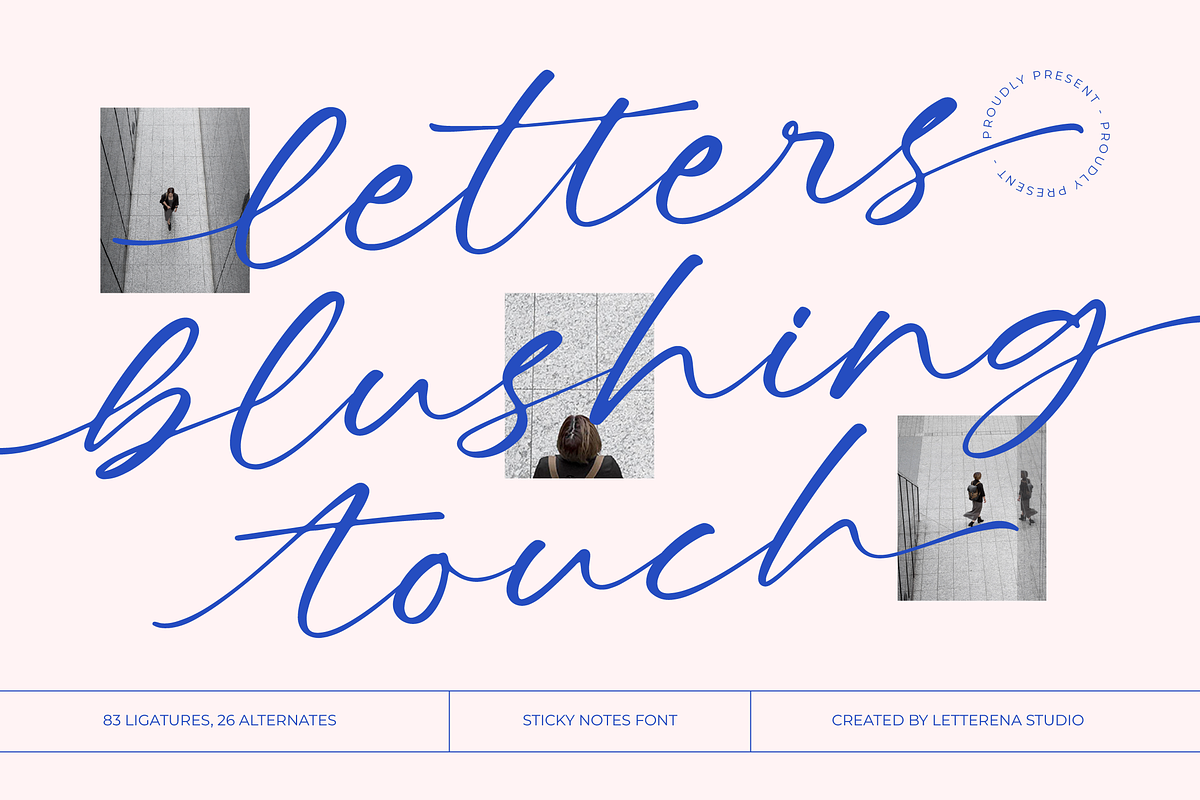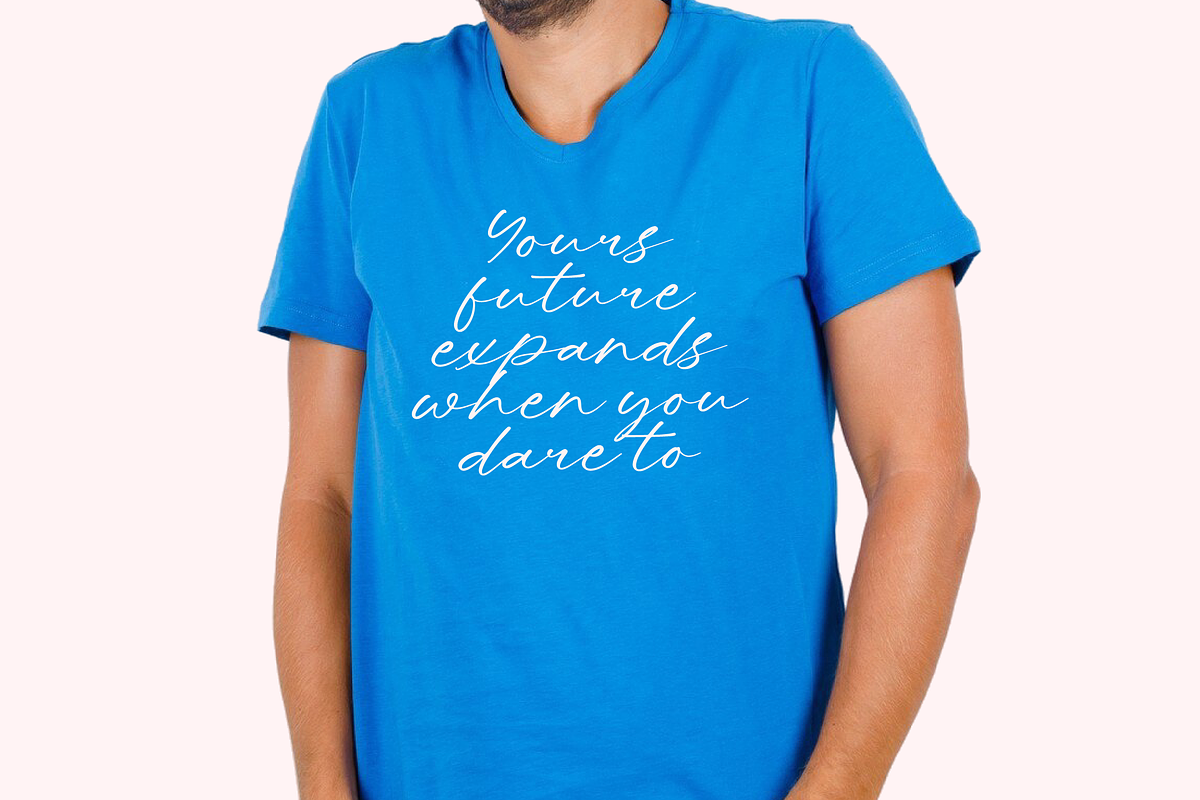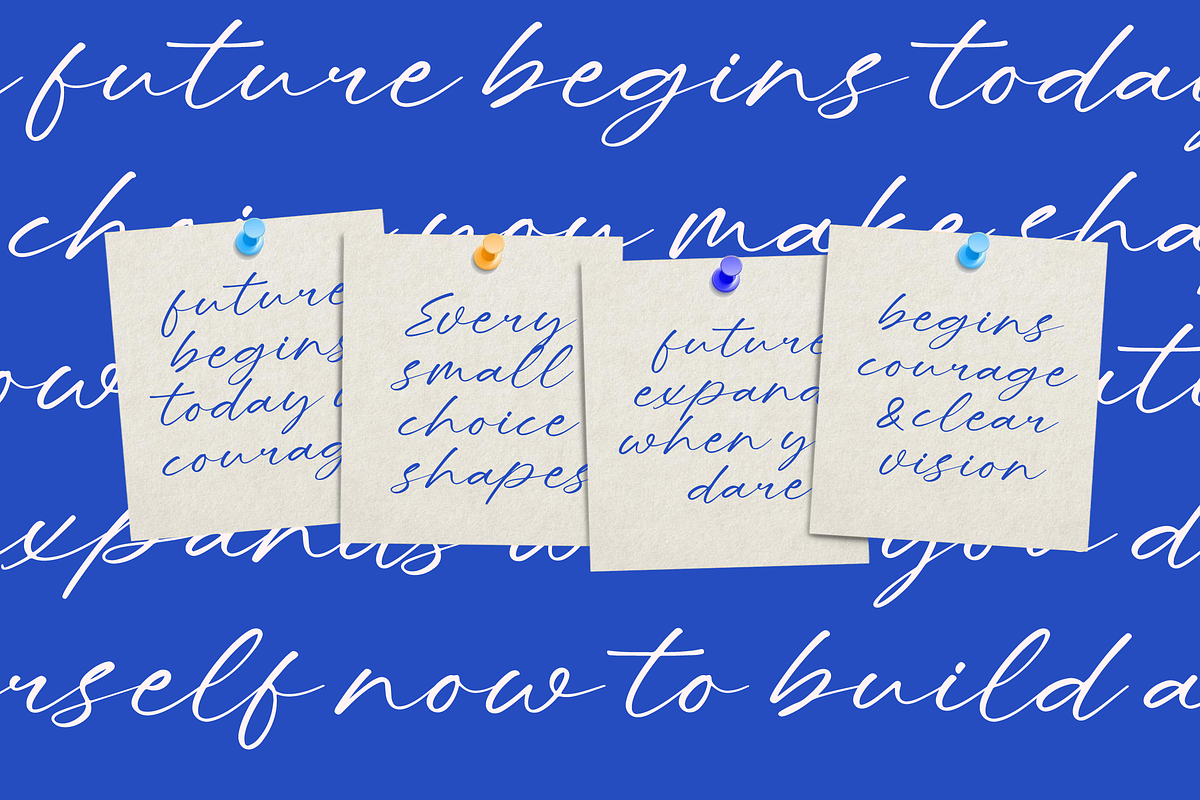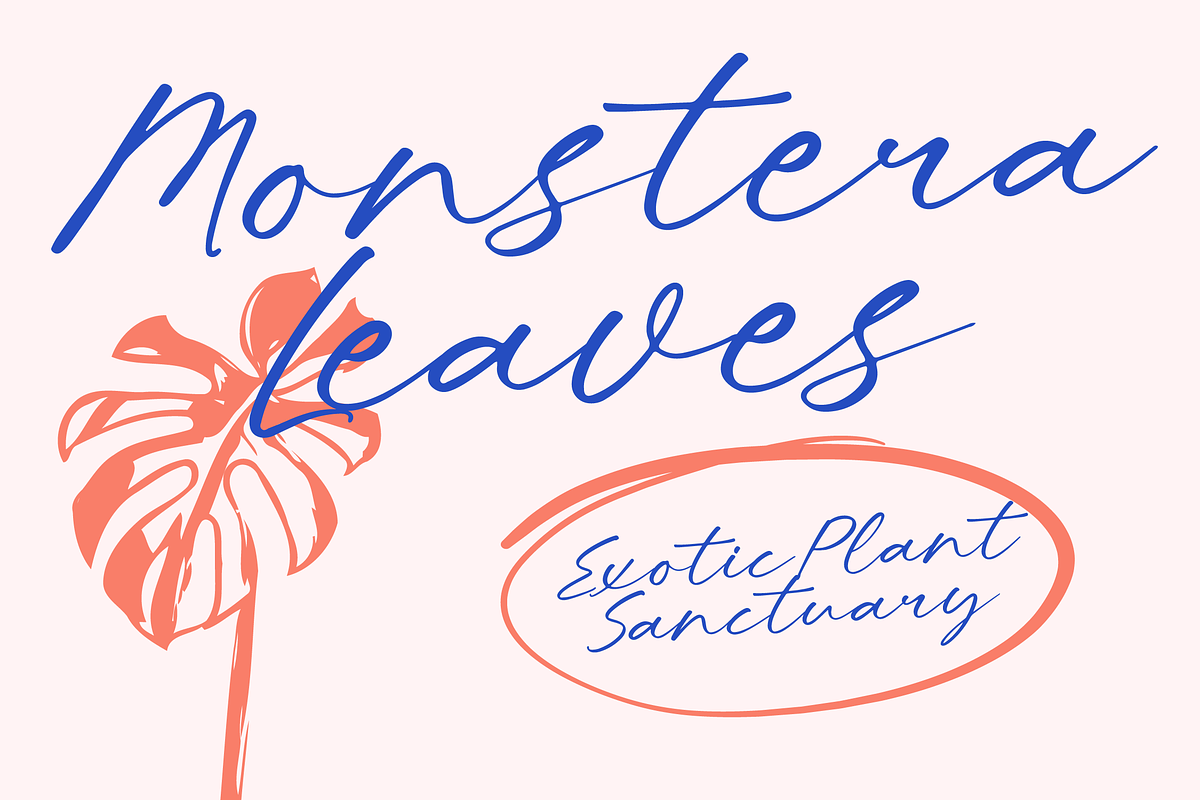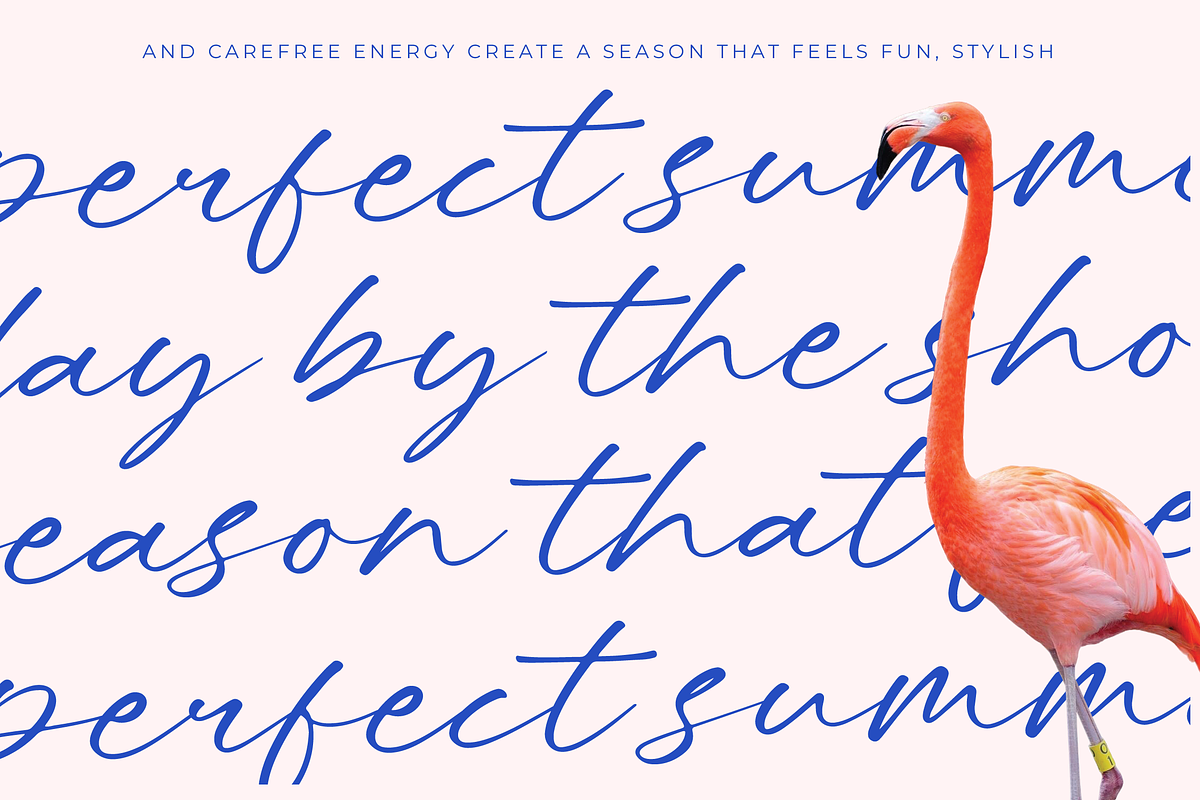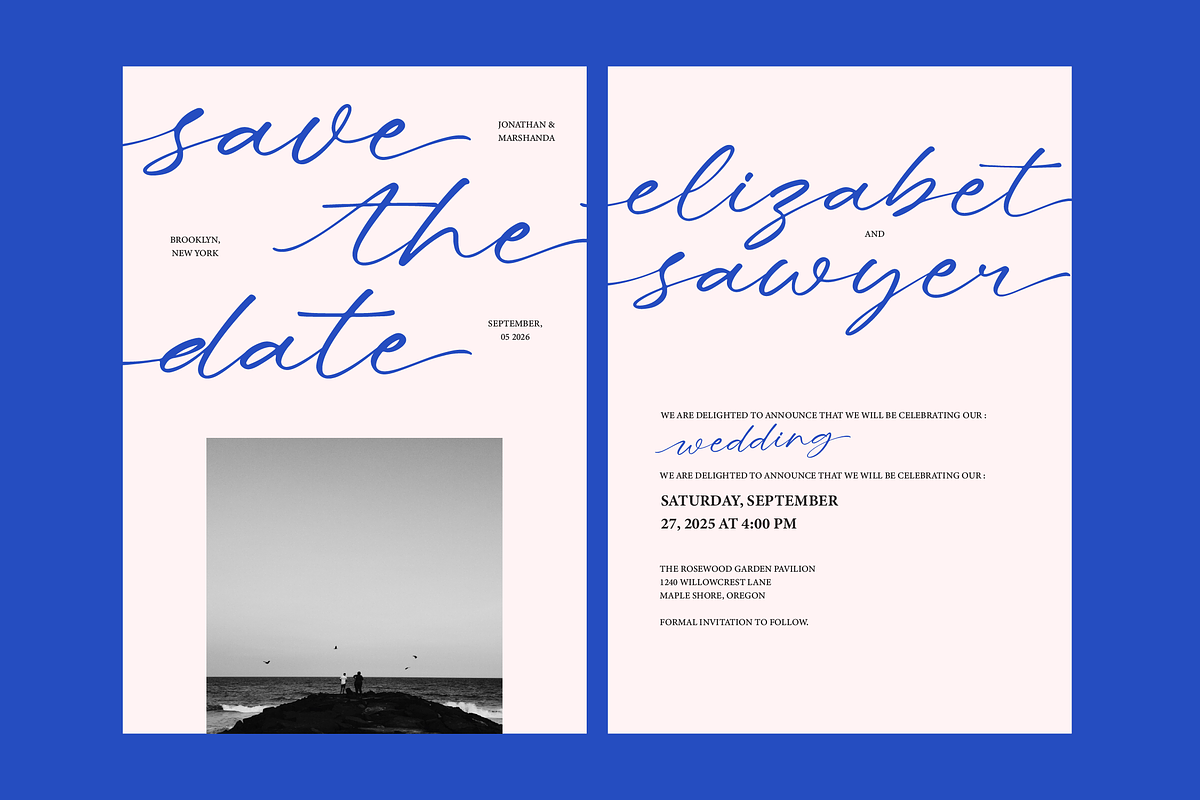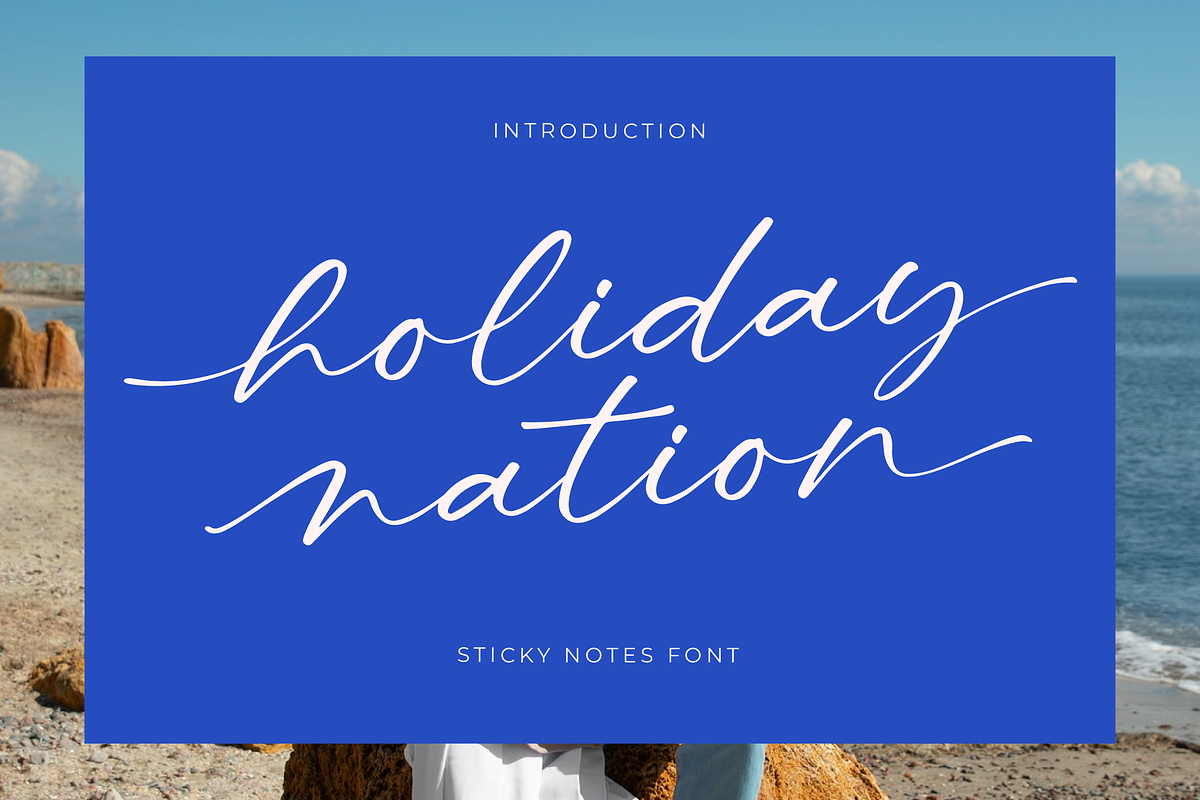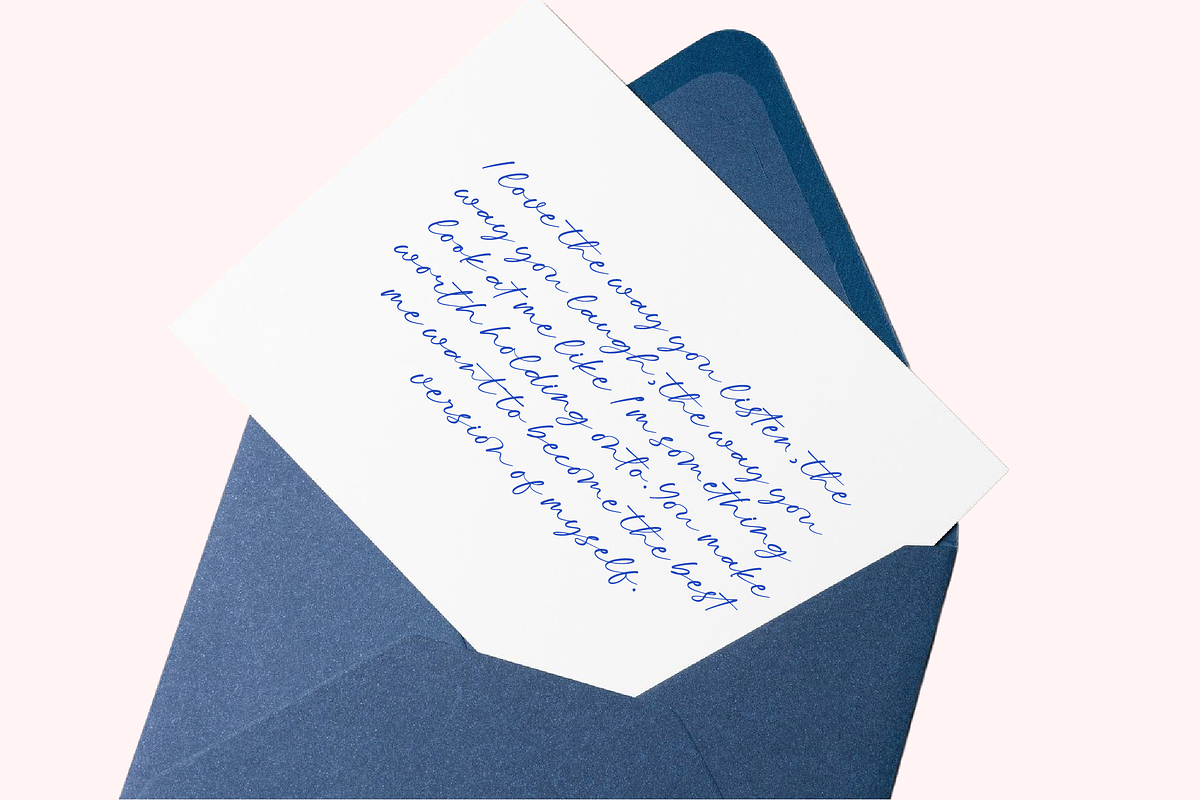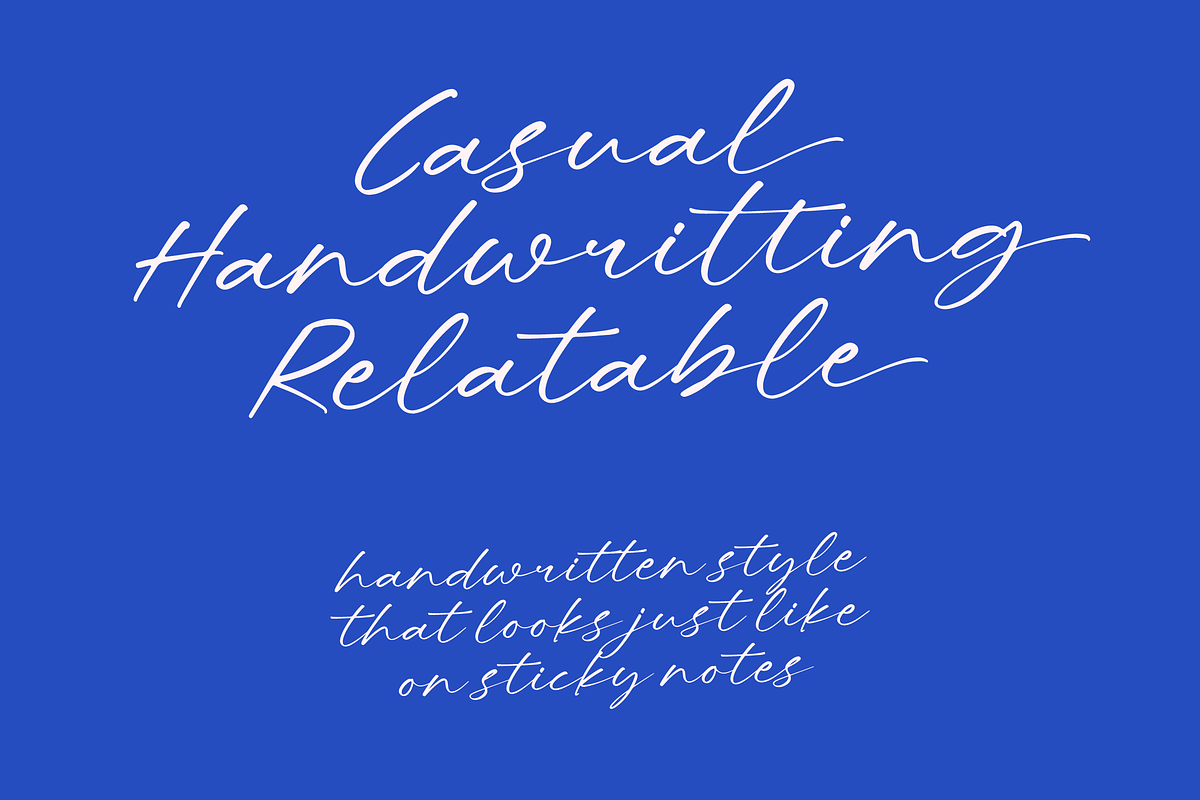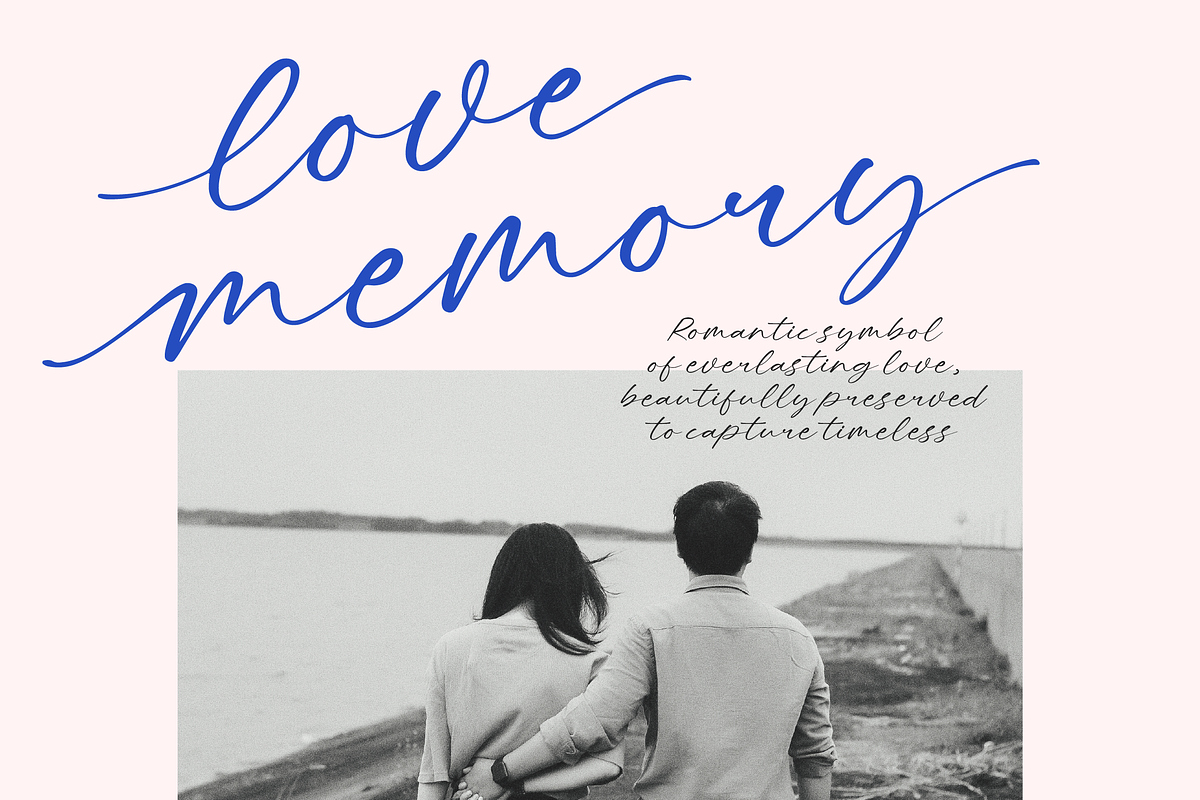
Letters Blushing Touch Sticky Note
Letters Blushing Touch - Sticky Notes Font , Letters Blushing Touch is a delicate handwritten script inspired by natural pen strokes and soft personal notes. Its elegant flow, long swashes, and smooth curves create an intimate handwritten feel perfect for branding, stationery, quotes, lifestyle visuals, and editorial layouts. With 83 ligatures and 26 alternates, this font gives designers flexibility to create authentic, expressive lettering with seamless connections and refined charm.